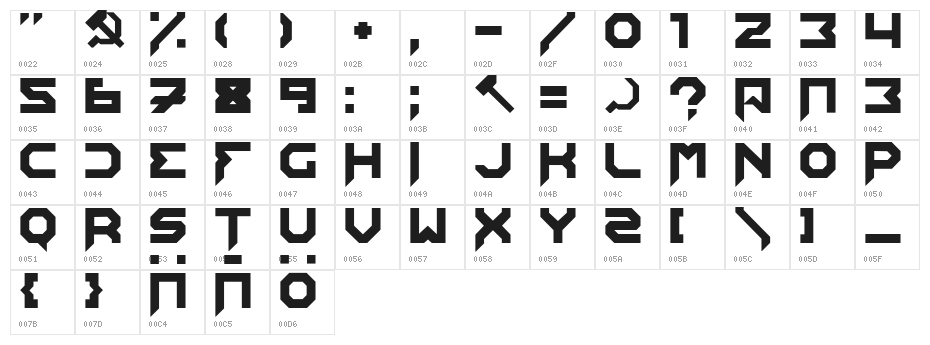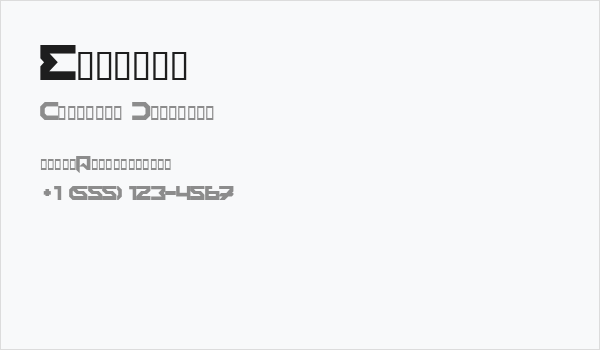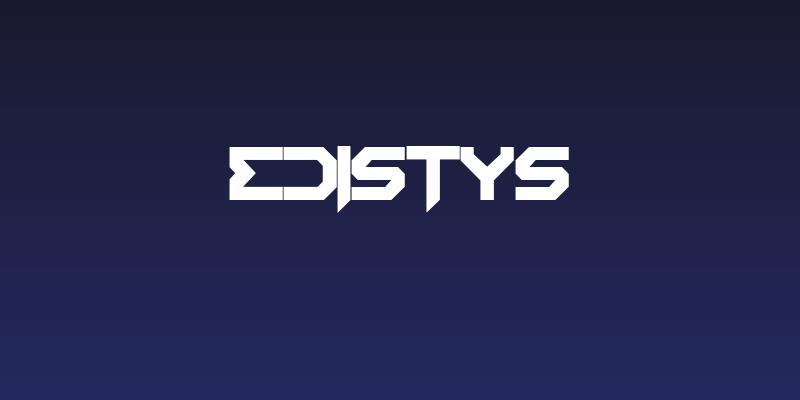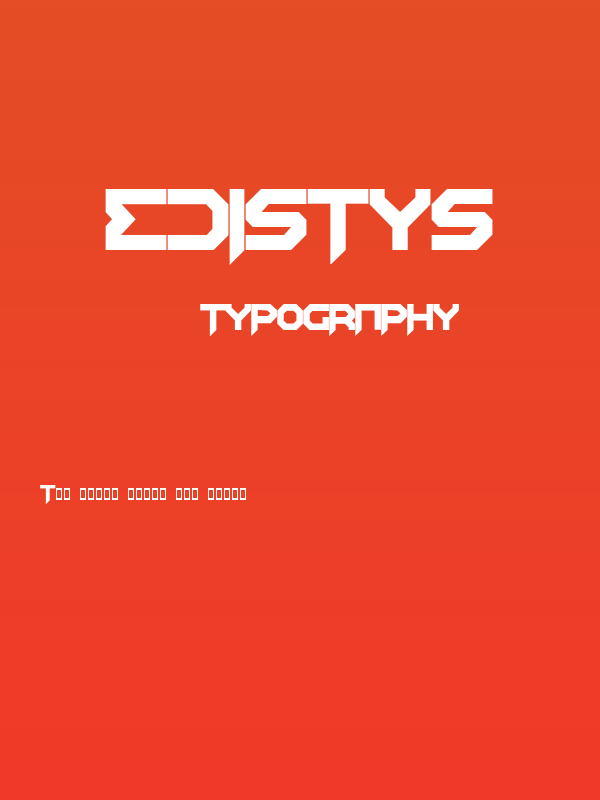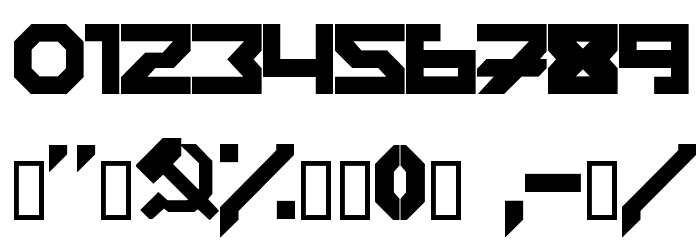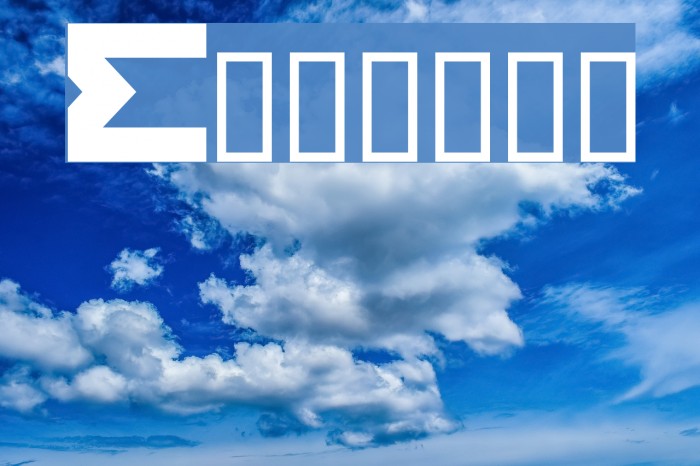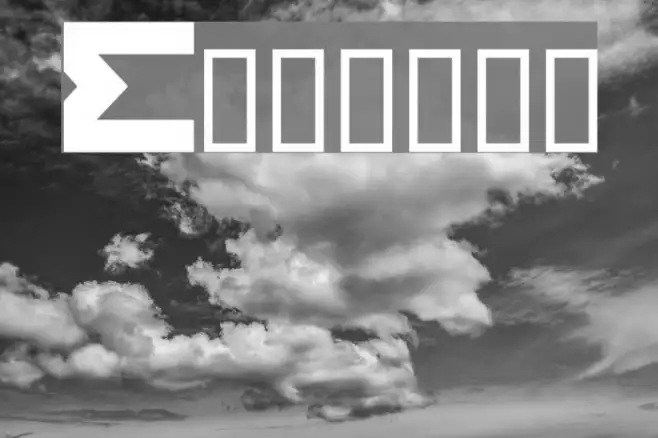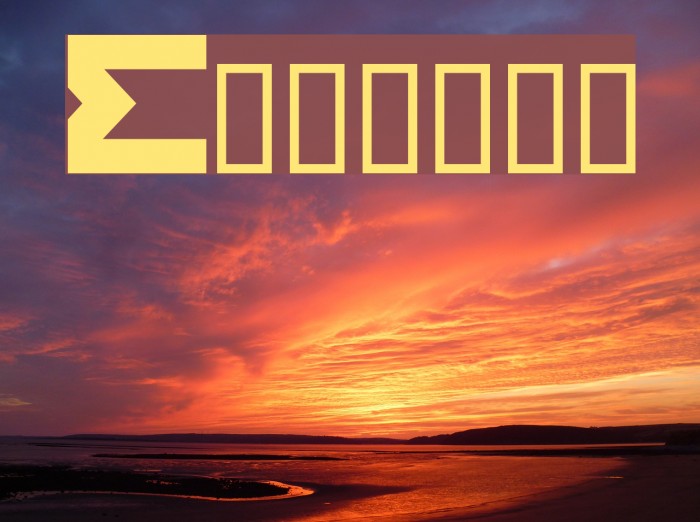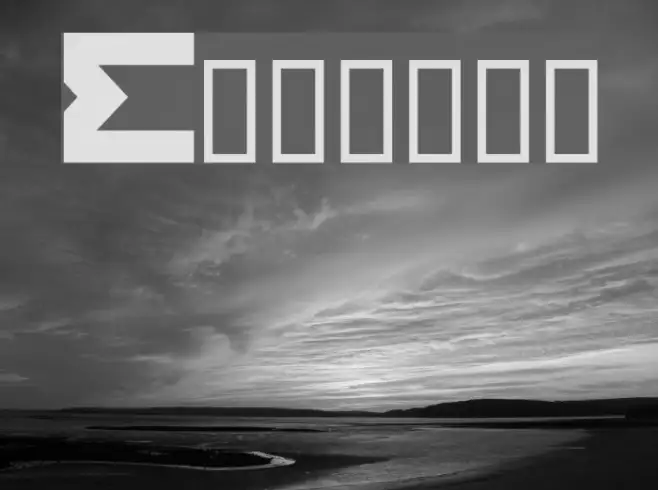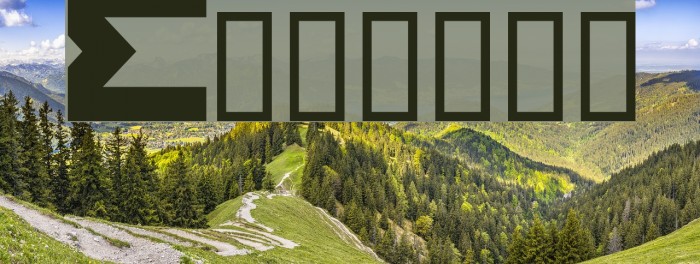
Edistys Font
This font features a bold, geometric design with sharp angles and a futuristic aesthetic. The characters are constructed with thick, uniform strokes, giving them a strong and impactful presence. The angular shapes and lack of curves create a mechanical and modern feel, making it suitable for projects that require a cutting-edge look. The uppercase letters are particularly striking, with unique forms that stand out. The numbers and special characters maintain the same bold and angular style, ensuring consistency across all elements.
| Use Case | Logos, Headlines, Posters |
| Proposed Projects | Ideal for technology branding, sci-fi themed designs, video game titles, and modern posters. |